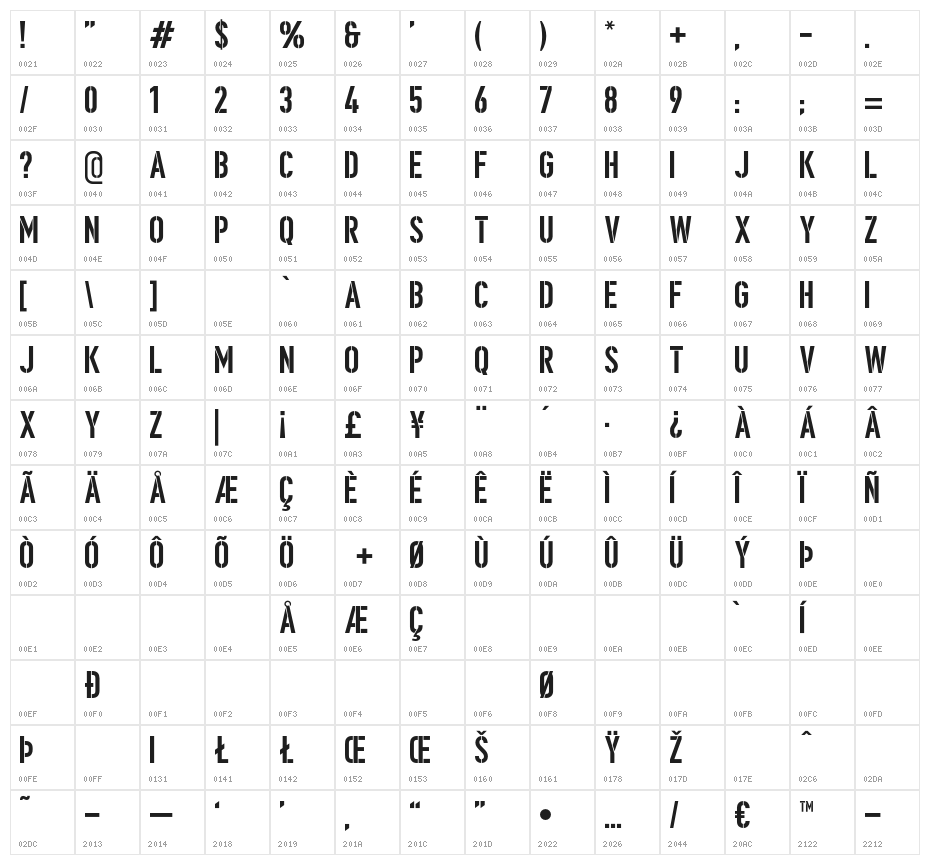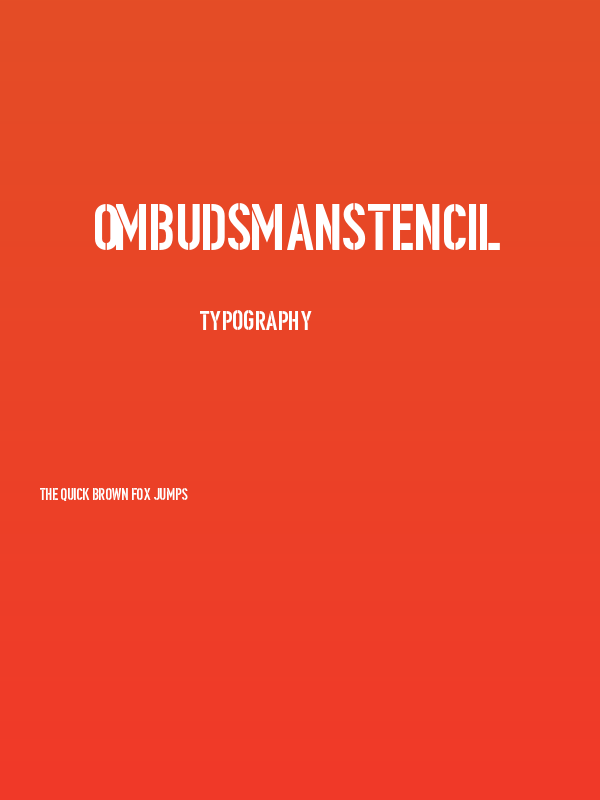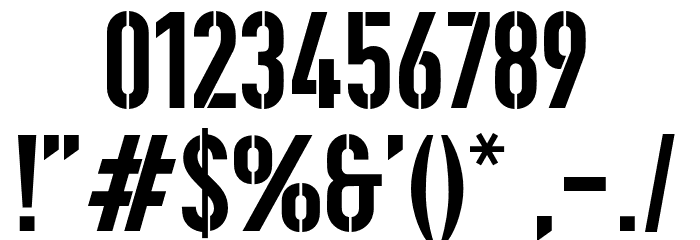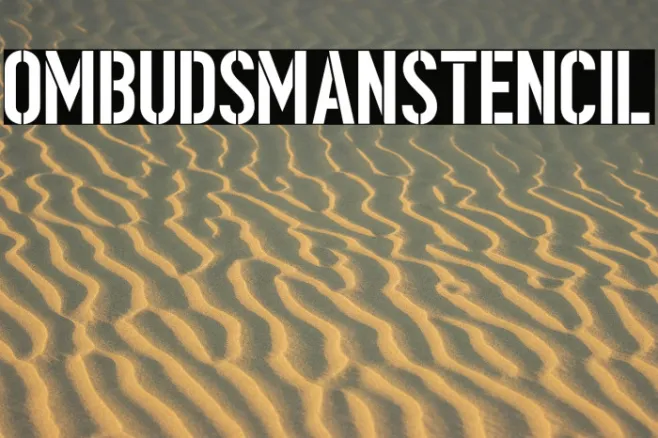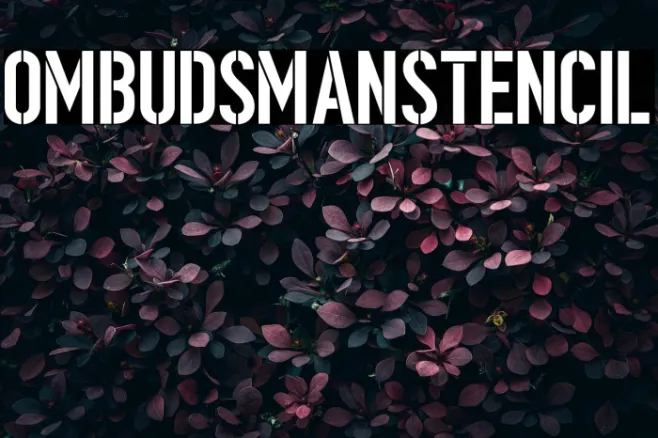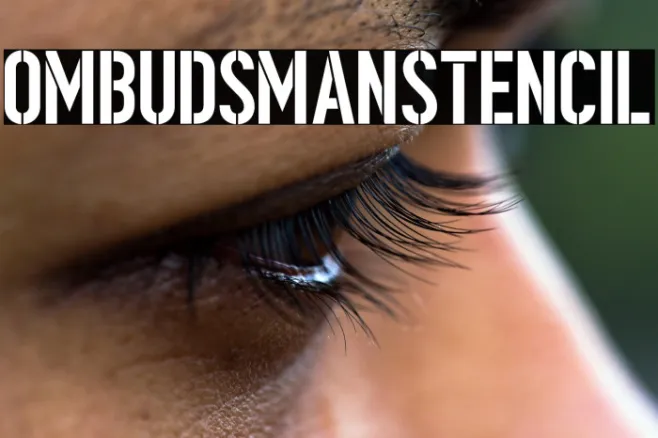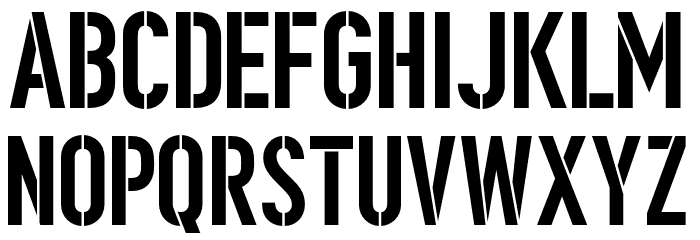
OmbudsmanStencil Font
OmbudsmanStencil Description
This font features a bold, stencil-like design characterized by its distinct cut-out sections within each letterform. The uppercase letters are prominent and striking, with a geometric structure that enhances readability while maintaining a decorative appeal. The numerals and special characters follow the same stencil style, ensuring consistency across all glyphs. Its bold weight and high contrast between thick and thin strokes make it ideal for impactful visual statements. The character spacing is relatively tight, which contributes to its compact and cohesive appearance.
| Proposed Projects | Ideal for use in posters, signage, branding, and any project requiring a strong visual impact. |